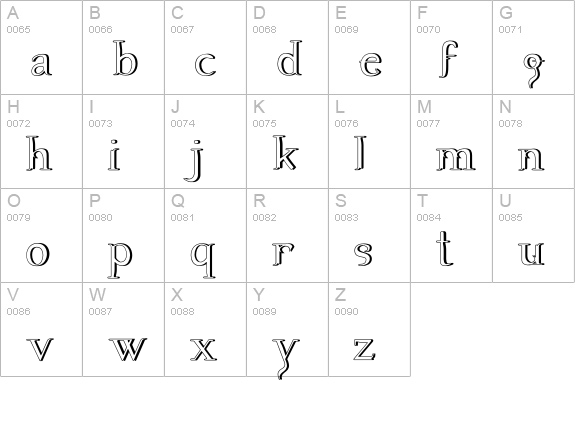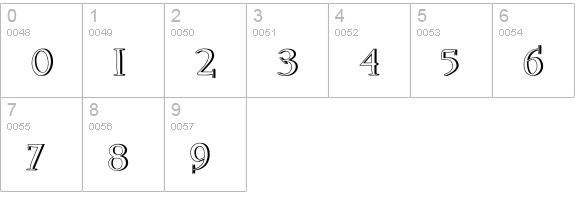
Tooth31-Shadow Font Details
Tooth31-Shadow font is a stunning display typeface with an edgy and mysterious aesthetic. Its bold and captivating design is perfect for making a statement and adding a touch of intrigue to any creative project. The sharp and shadowy edges of each letter create a distinctive look that is both modern and timeless. This font is ideal for posters, headlines, logos, and other graphic designs that require a strong visual impact. Its unique style will instantly draw attention and leave a lasting impression on your audience. The versatility of Tooth31-Shadow font allows it to be used in various design contexts, from fashion and music to technology and gaming. Its sleek and sharp lines make it a perfect fit for contemporary and urban-themed projects. The best part? Tooth31-Shadow font is completely free! You can easily download this font from FontsMarket.com and start using it in your designs right away. Whether you're a professional designer or a hobbyist, this font is a valuable addition to your collection. Don't miss out on the opportunity to elevate your designs with the striking and captivating Tooth31-Shadow font. Download it today for free at FontsMarket.com and let your creativity shine!